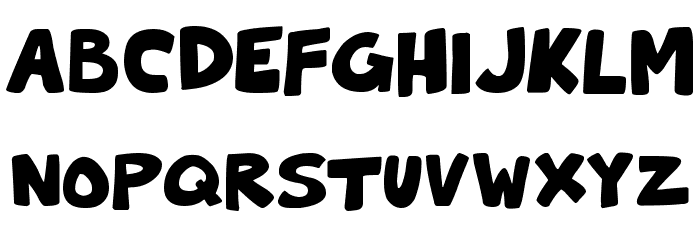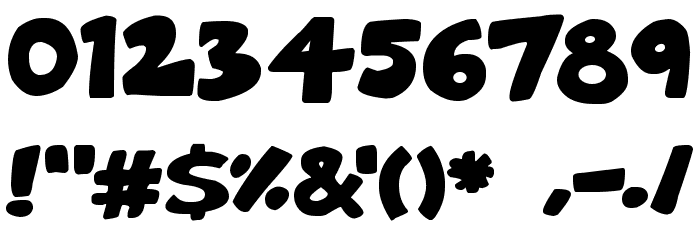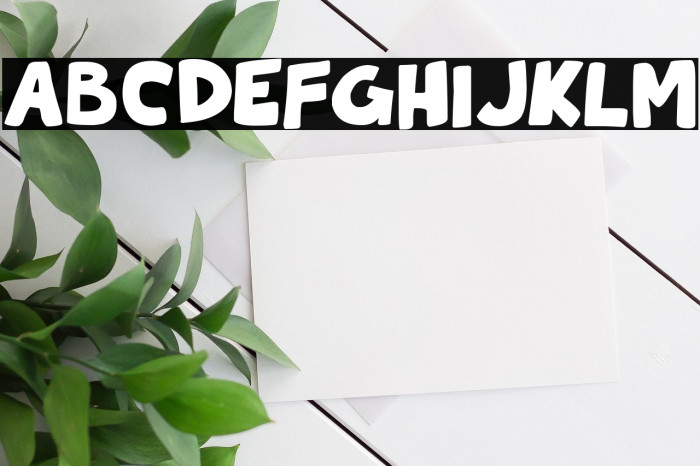
Toon Cats Font
This playful and bold font features thick, rounded characters that exude a cartoonish and whimsical vibe. The letters are designed with a slight irregularity, giving them a hand-drawn appearance that adds to their charm. The font is highly legible, with each character distinctly separated, making it suitable for various creative projects. Its boldness ensures visibility and impact, while the rounded edges soften the overall look, making it approachable and friendly. The numbers and special characters maintain the same playful style, ensuring consistency across all text elements.
A bold, playful font with rounded, cartoonish characters.
- Font: Toon Cats
- Proposed Projects: Ideal for children's books, comic strips, playful branding, and animated video titles.
- Overall Style: Playful, Cartoonish